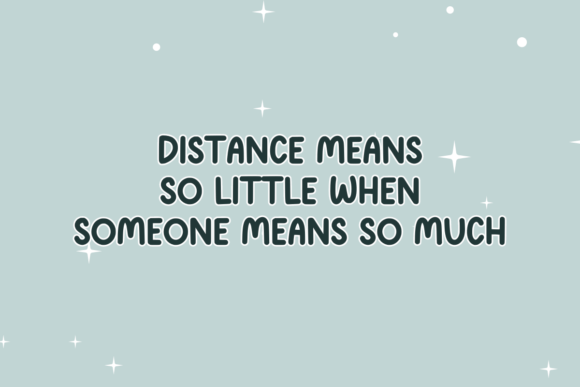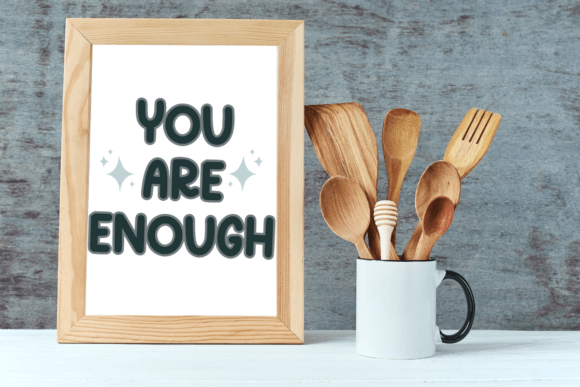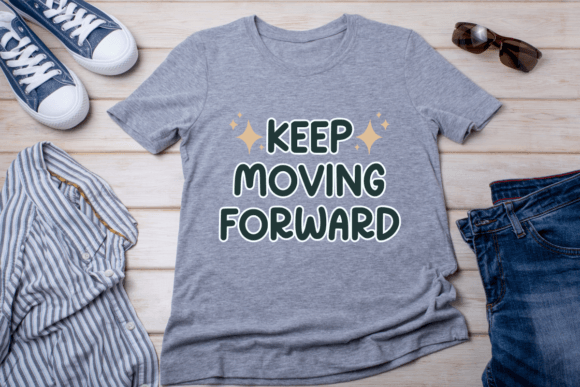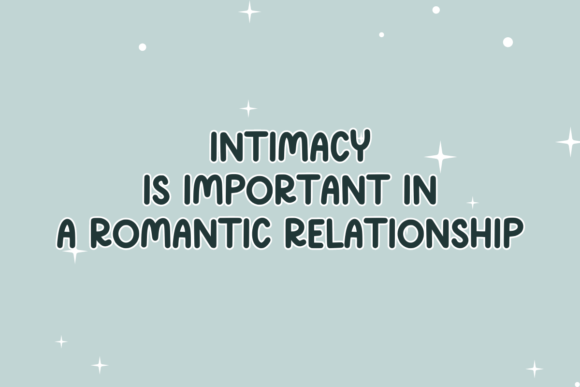
Introduction to Open Tour Font
Have you ever been working on a creative project, and the perfect font just slips your mind? You envision a design that’s both playful and charming, but the right words just won’t come together. This is where the Open Tour Font comes in – a delightful sans serif font that’s sure to bring a smile to your face.
Designed with a unique blend of quirkiness and cuteness, the Open Tour Font is a valuable addition to any designer’s toolkit. Whether you’re working on a fun project like Easter decorations or a wedding invitation, this font is the perfect way to add a friendly touch. With its high quality design and transparent background, it’s a versatile resource that’s sure to elevate your creative projects.
Key Features of Open Tour Font
- High-quality design: This font features a high-quality design that is suitable for a wide range of creative projects, from logos and branding to posters and brochures.
- Transparent background: Open Tour Font has a transparent background, making it easy to overlay text on images or other design elements.
- Unique characteristics: The font features a unique and modern design style, with clean lines and a minimalist aesthetic that makes it perfect for a wide range of creative projects.
- Design versatility: Open Tour Font is highly versatile and can be used for a wide range of design projects, from digital to print, and from logos to signage.
Honest Review: Open Tour Font
I recently stumbled upon the Open Tour Font, and I must say it’s a great addition to any designer’s arsenal. This high-quality font is a great design resource for any creative project, especially those that require a bold and adventurous feel.
- ✨ Transparent background: One of the standout features of the Open Tour Font is its ability to work seamlessly with transparent backgrounds, making it perfect for designing icons, logos, and other graphics.
- ✨ High-quality glyphs: The font features a wide range of high-quality glyphs, including uppercase and lowercase letters, numbers, and punctuation marks.
While the Open Tour Font is an excellent resource, there are a few limitations to keep in mind.
- ⚠️ Limited font styles: The Open Tour Font only comes in a single font style, which may limit its versatility for certain design projects.
- ⚠️ Not suitable for large body text: Due to its bold and adventurous feel, the Open Tour Font may not be the best choice for large blocks of body text.
Overall, I’m impressed with the Open Tour Font and would highly recommend it to designers looking for a high-quality, free design resource for their creative projects.